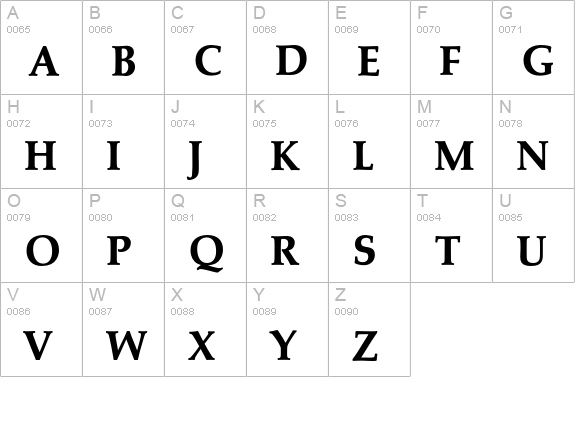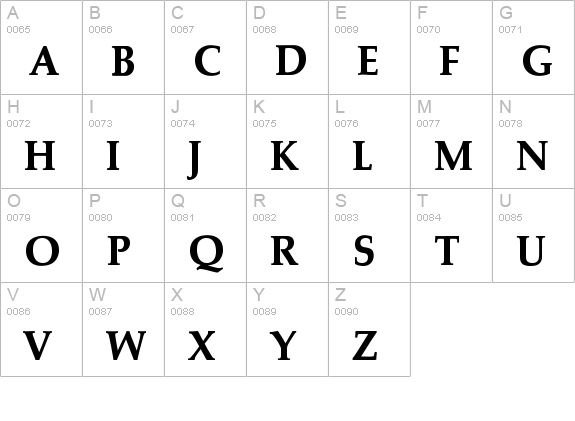
Marathon-Bold Font Details
Marathon-Bold is a strong, high-contrast variant in the Marathon typeface family \xE2\x80\x94 well suited to headlines, attention-grabbing titles, and strong calls-to-action.
Marathon-Bold font is a stunning display typeface that exudes confidence and strength. Its bold and dynamic letterforms make a powerful statement in any design project. With its clean lines and sharp edges, Marathon-Bold demands attention and leaves a lasting impression. This font is perfect for headlines, logos, posters, and any design that requires a bold and impactful look. Its versatility allows it to be used in a variety of settings, from advertising campaigns to magazine layouts, adding a touch of boldness and modernity to any project. But what sets Marathon-Bold font apart is that it is not only visually striking, but it is also free. That's right, this amazing font is freely available to download at FontsMarket.com. Now you can enjoy the premium quality of Marathon-Bold without any cost, making it an ideal choice for both personal and commercial projects. Whether you're a professional designer or a creative enthusiast, Marathon-Bold font is a must-have in your font library. Its bold and commanding presence will elevate your designs and help you make a lasting impact. Don't miss out on this incredible opportunity to download Marathon-Bold for free at FontsMarket.com and take your design projects to the next level.